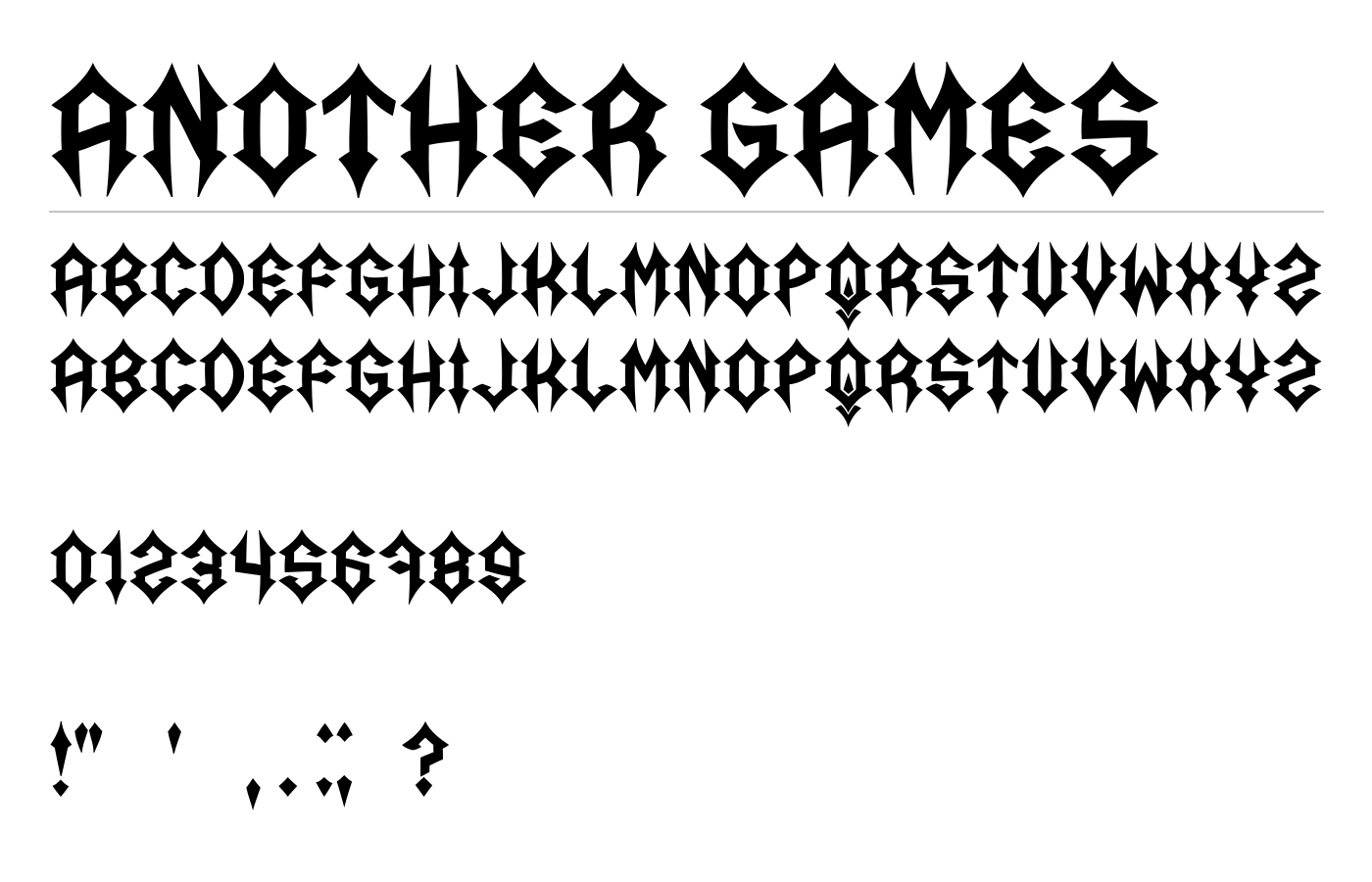
Another Games Font is a bold, blackletter-inspired display typeface with sharp, pointed edges and dramatic geometric shapes that evoke a gothic, intense style. Its striking, heavy strokes and unique letterforms make it perfect for gaming logos, posters, or any project seeking an edgy, powerful look. This font works best in headlines or branding where a strong, memorable impact is desired.
Another Games Font
About Another Games Font
| Font family | Another Games Font |